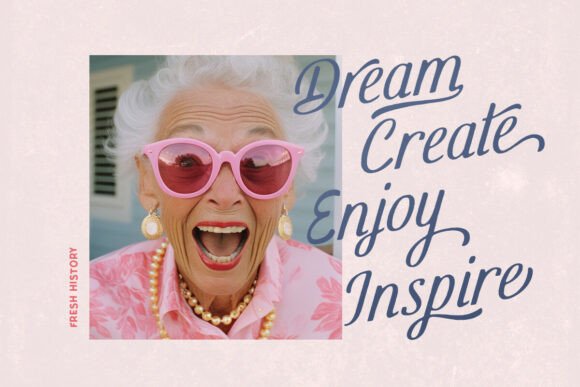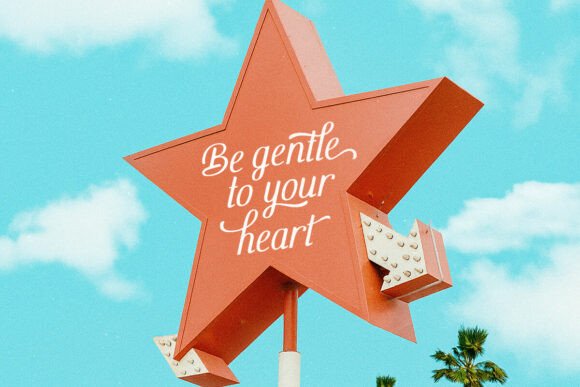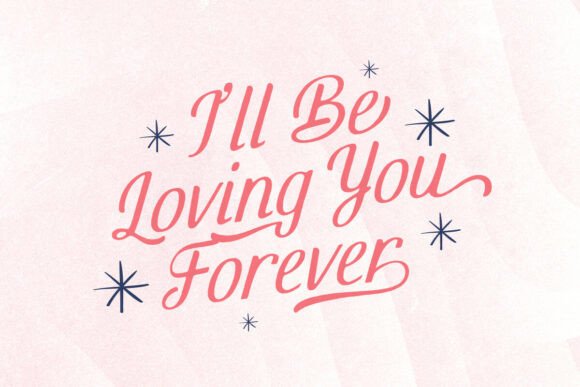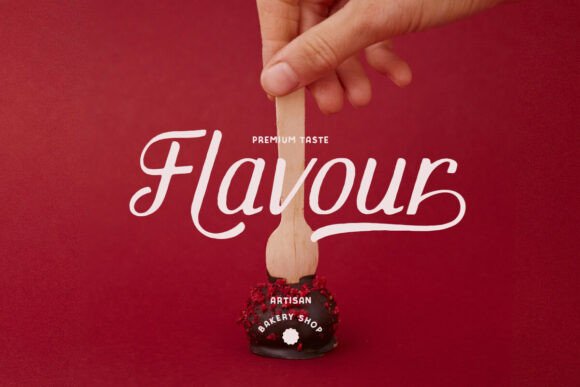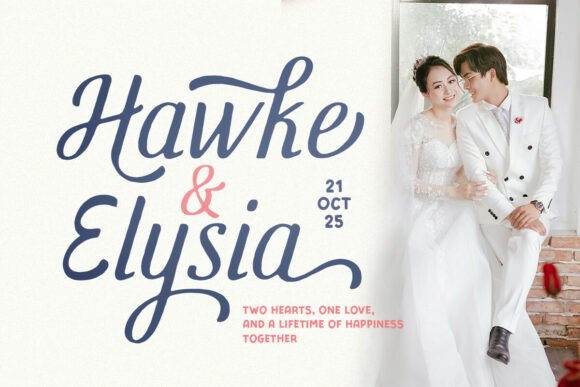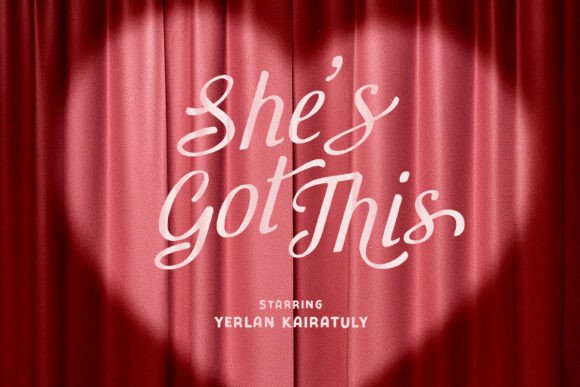
Introducing Fresh History: A Timeless Script Font with a Modern Twist
Are you looking for a font that captures the essence of vintage sign writing with a modern, playful spin? Look no further than Fresh History, a lively and charming script font that’s perfect for designers and crafters seeking a unique, handmade look. In this article, we’ll dive into the world of Fresh History, exploring its features, benefits, and uses, and why it’s an excellent choice for your next design project.
The Charm of Fresh History
Fresh History is a stunning script font that beautifully blends the timeless, hand-painted look of vintage sign writing with a fun, slightly bouncy modern energy. Its thick, expressive strokes and smooth, cursive connections make it feel simultaneously nostalgic and completely current. This gorgeous typeface is perfect for adding a touch of warmth and personality to your designs, whether you’re branding food, craft goods, retro-themed events, or packaging.
Key Features of Fresh History
- Hand-painted look: Fresh History boasts a beautiful, hand-painted look that’s reminiscent of vintage sign writing.
- Expressive strokes: The font features thick, expressive strokes that add a touch of elegance and sophistication to your designs.
- Smooth connections: The smooth, cursive connections between letters create a sense of fluidity and continuity.
- High legibility: Fresh History is designed to be highly legible, ensuring that your message is conveyed clearly and effectively.
- PUA-encoded: The font is PUA-encoded, making it easy to access all glyphs, swashes, and alternate characters.
Fresh History is an excellent choice for designers and crafters seeking a font that captures the essence of handmade, vintage-inspired design. Whether you’re creating branding materials, packaging, or promotional materials, this font is sure to make a strong impact. Its delightful curves and sweet, warm personality make it perfect for:
- Food branding: Add a touch of warmth and personality to your food brand with Fresh History.
- Craft goods: Showcase your handmade craft goods with a font that exudes a sense of handcrafted authenticity.
- Retro-themed events: Create eye-catching promotional materials for your retro-themed events with Fresh History.
- Packaging: Stand out on store shelves with packaging that features a unique, vintage-inspired look.
Customizing Fresh History
One of the best things about Fresh History is its versatility. The font is PUA-encoded, making it easy to access all glyphs, swashes, and alternate characters. This means you can customize your creations with ease, adding your own personal touch to your designs. With Fresh History, you can:
- Access alternate characters: Switch between different characters and swashes to create a unique look.
- Customize glyphs: Personalize your designs by accessing and modifying glyphs to suit your needs.
- Create stunning ligatures: Use Fresh History’s built-in ligatures to add a touch of elegance to your designs.
In conclusion, Fresh History is a stunning script font that’s perfect for designers and crafters seeking a unique, vintage-inspired look. Its beautiful, hand-painted strokes, smooth connections, and high legibility make it an excellent choice for a wide range of design projects. With its PUA-encoded feature, you can customize your creations with ease, adding a personal touch to your designs. Whether you’re branding food, craft goods, or packaging, Fresh History is sure to make a strong impact. So why wait? Download Fresh History today and infuse your designs with a sense of handcrafted authenticity and joyful, classic charm.